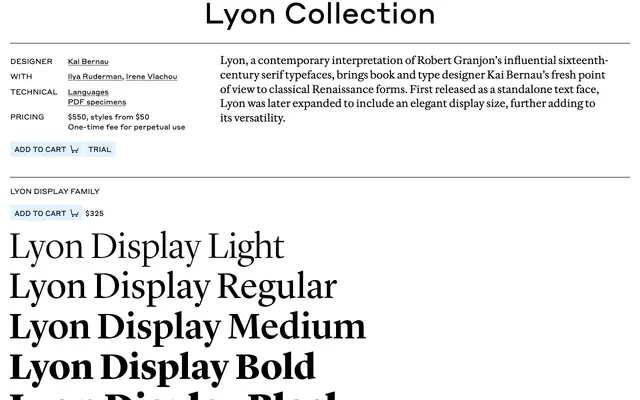
Lyon
Commercial Type · Kai Bernau
Kai Bernau's contemporary take on Granjon's Renaissance serifs, with Text and Display optical sizes for books, editorial and elegant brand work.
A contemporary Garalde by Kai Bernau, with Ilya Ruderman and Irene Vlachou on the Cyrillic and Greek. Lyon reinterprets Robert Granjon's sixteenth-century French Renaissance serifs in a calm, modern voice. First released as a text face, the family was later extended with a Display optical size for headline work. Weights run from Light through to Black with matching italics, including a Lyon Text Regular No 2 cut for tighter text settings. Sits in book design, long-form editorial and luxury brand identity work where you want a quiet, classical seriousness.
Commercial Type describe Lyon as Kai Bernau's contemporary interpretation of Robert Granjon's influential sixteenth-century serif typefaces, first released as a text face and later extended with a Display optical size.